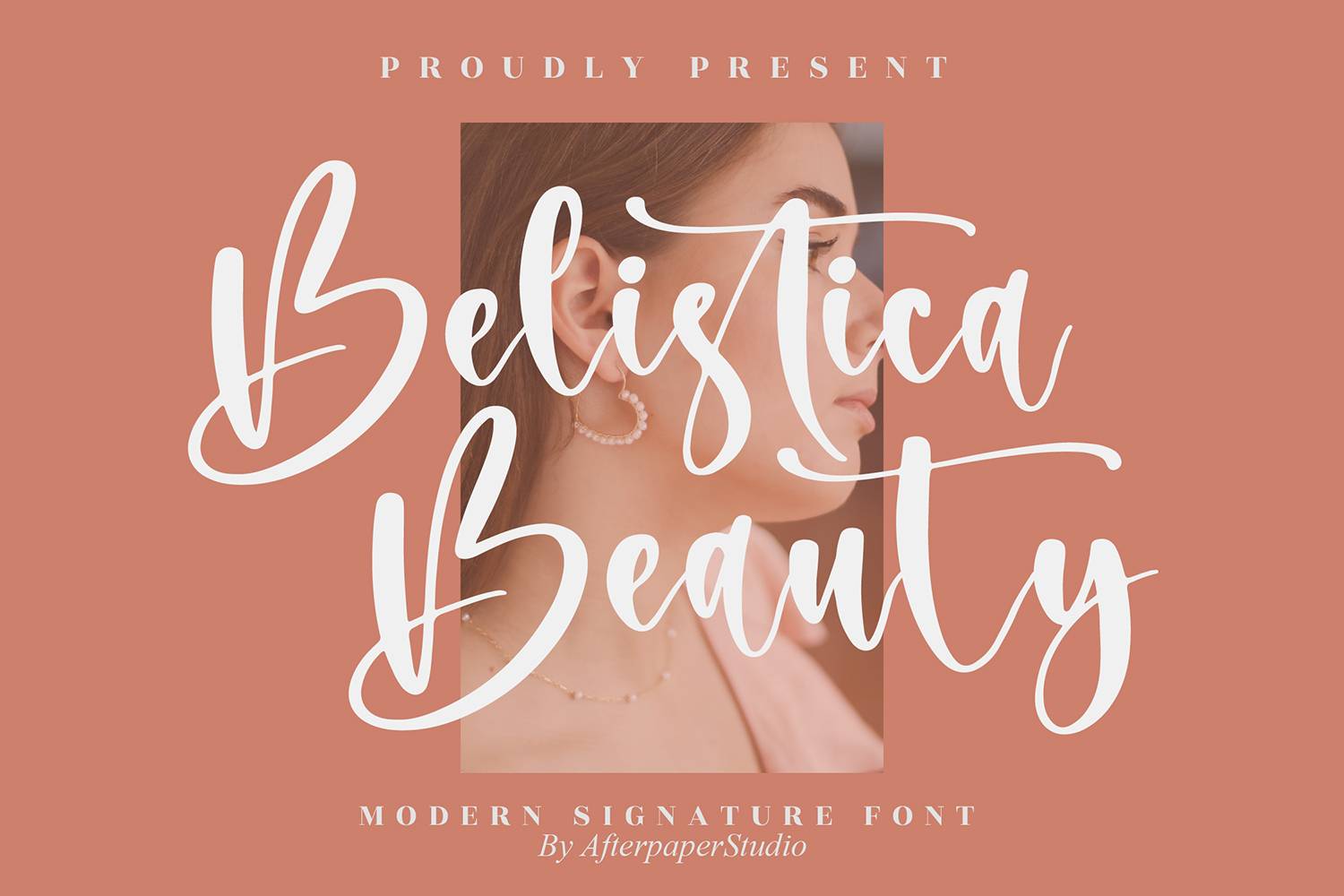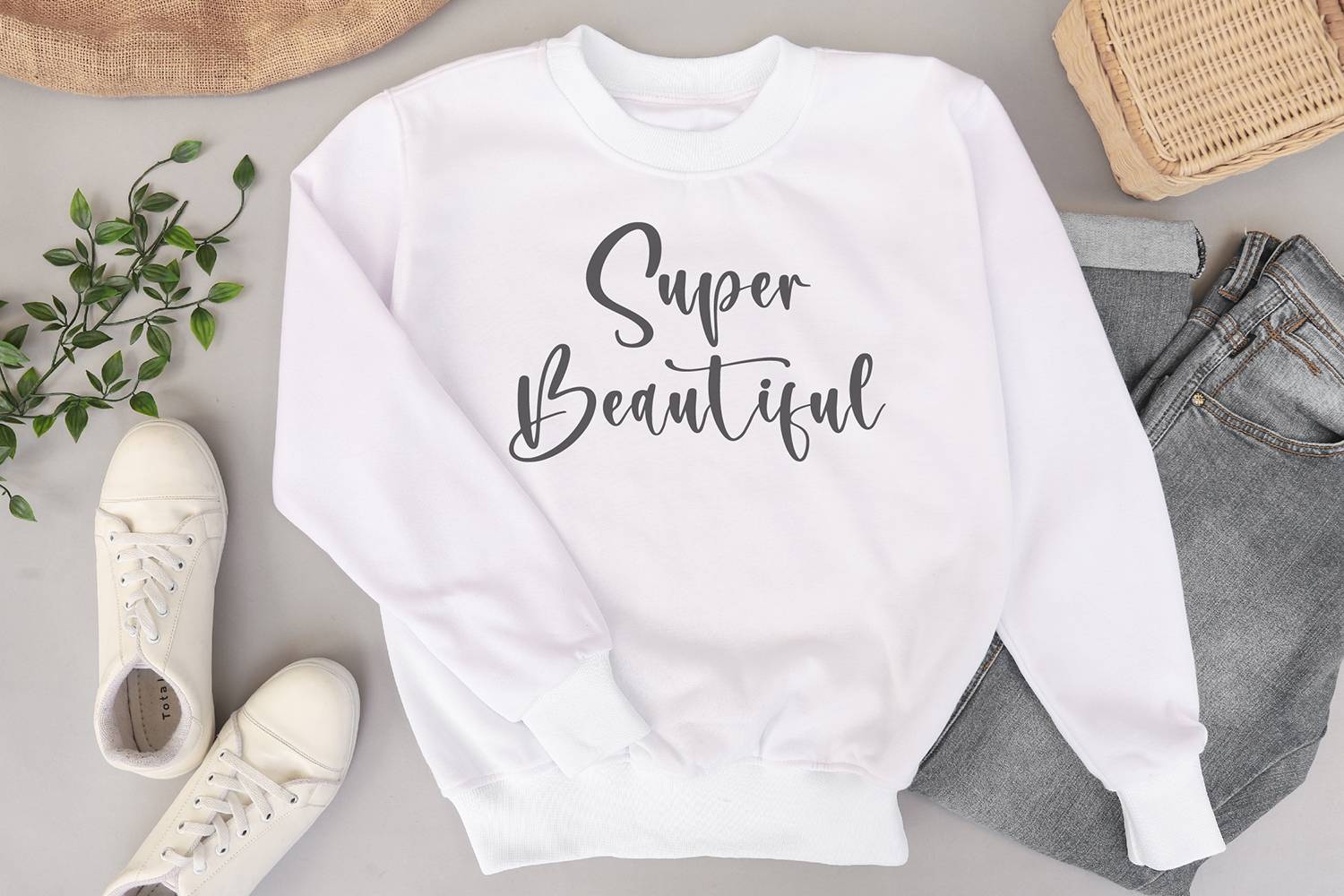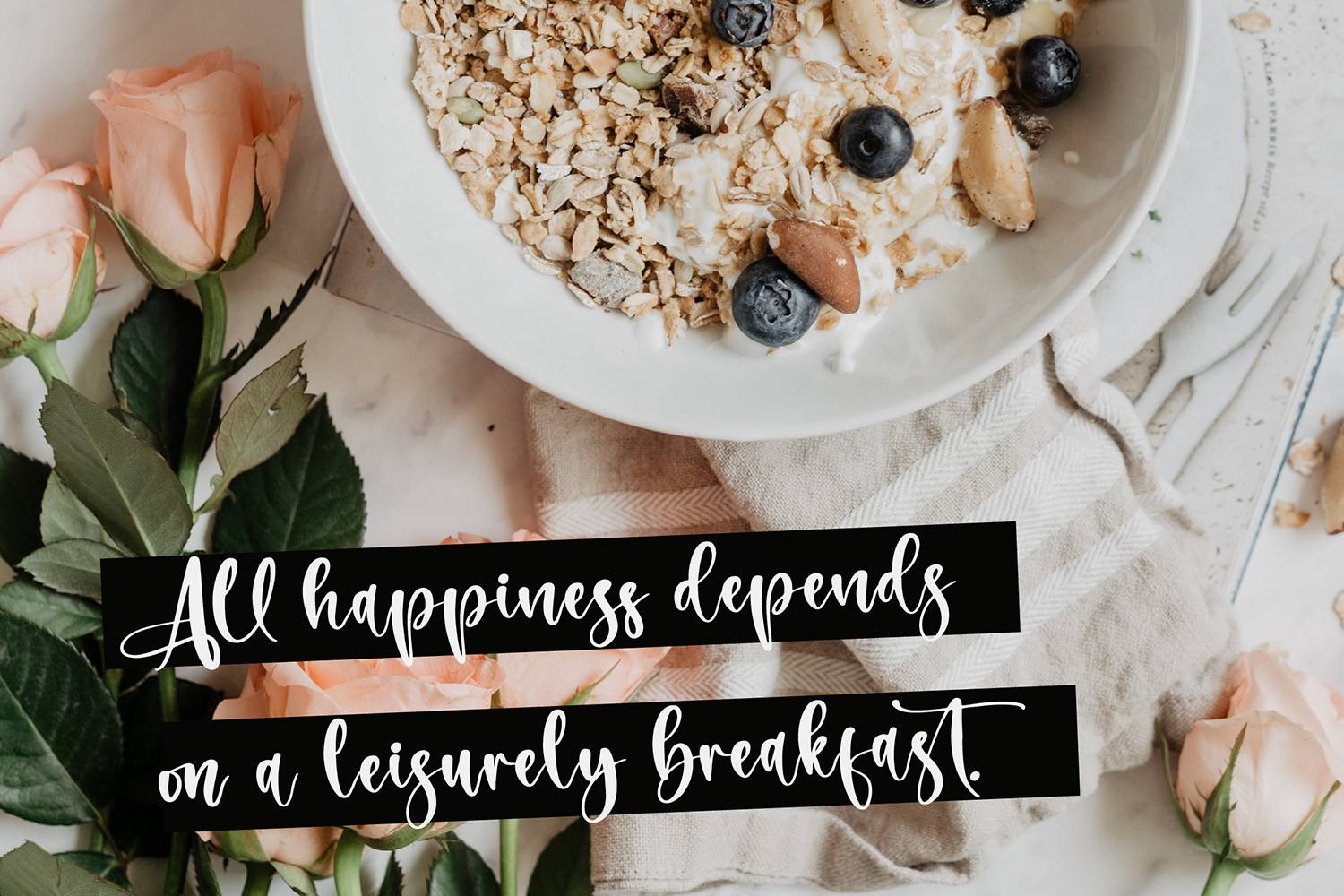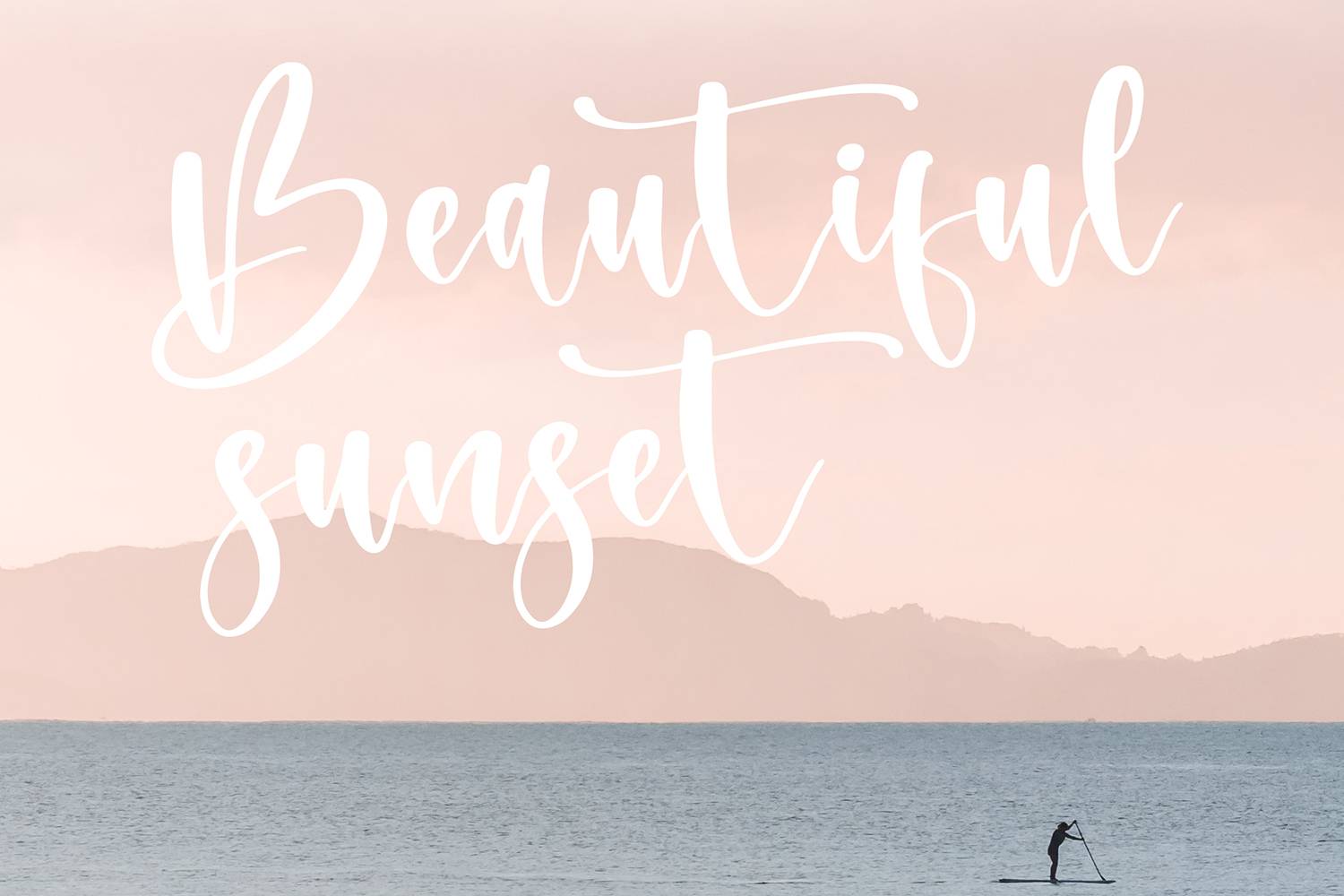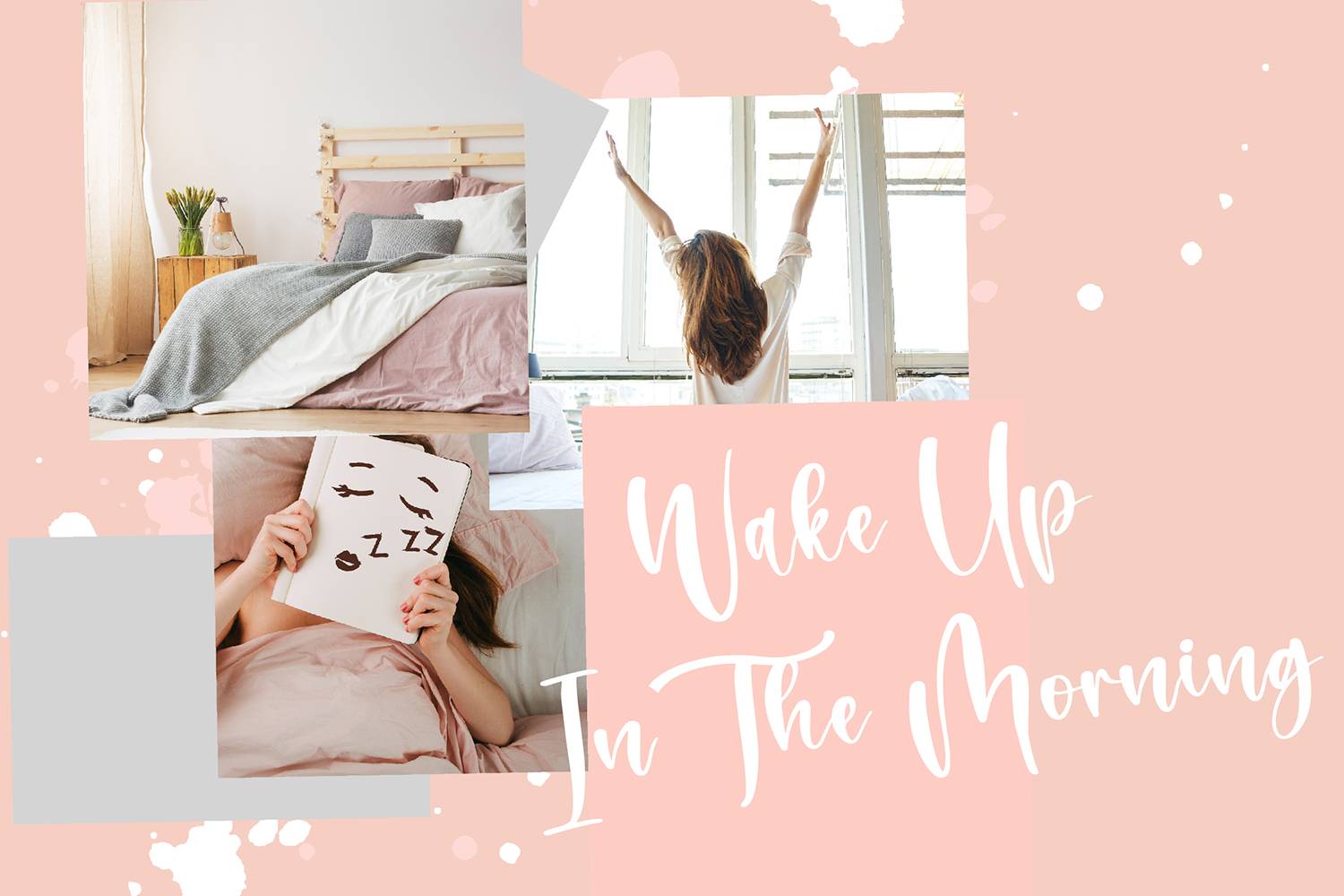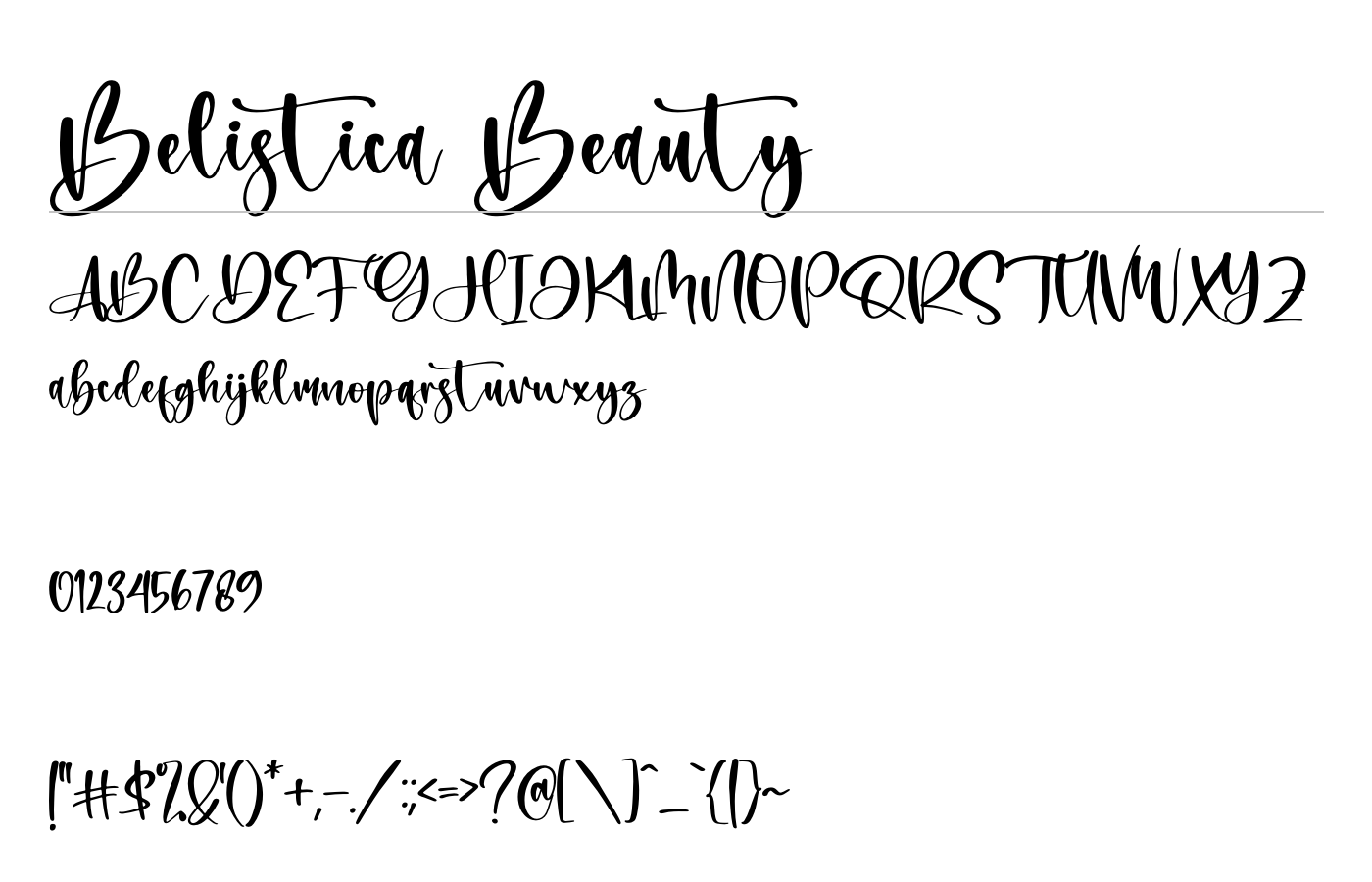
Belistica Beauty is a stylish script font with a modern, handwritten feel that blends elegance with playful charm. Its flowing, brush-like strokes and varied letterforms give it a lively personality perfect for beauty, fashion, and creative branding. This font works beautifully in logos, invitations, and headlines where a chic, personal touch is desired.
Belistica Beauty Font
About Belistica Beauty Font